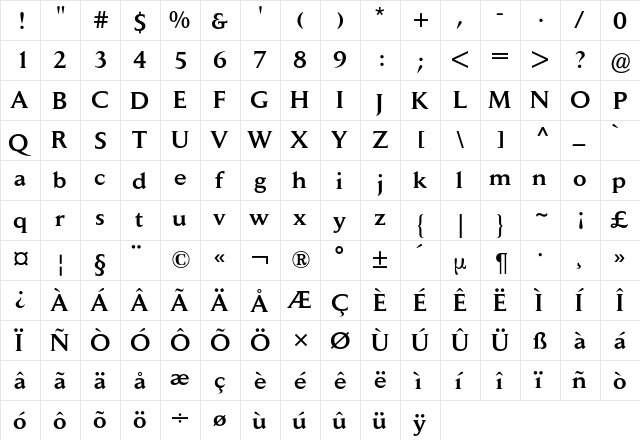
Daily News BQ Regular
Daily News BQ takes a measured approach to typography — its balanced proportions and neutral character make it a reliable workhorse for both digital and print work.